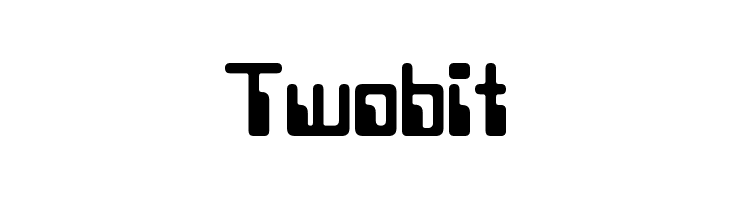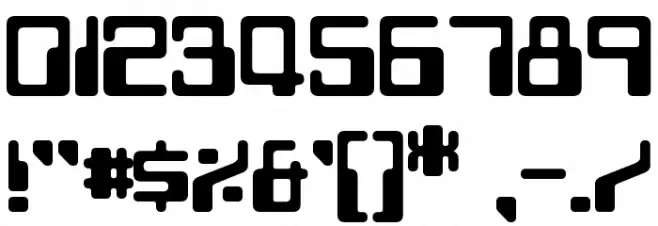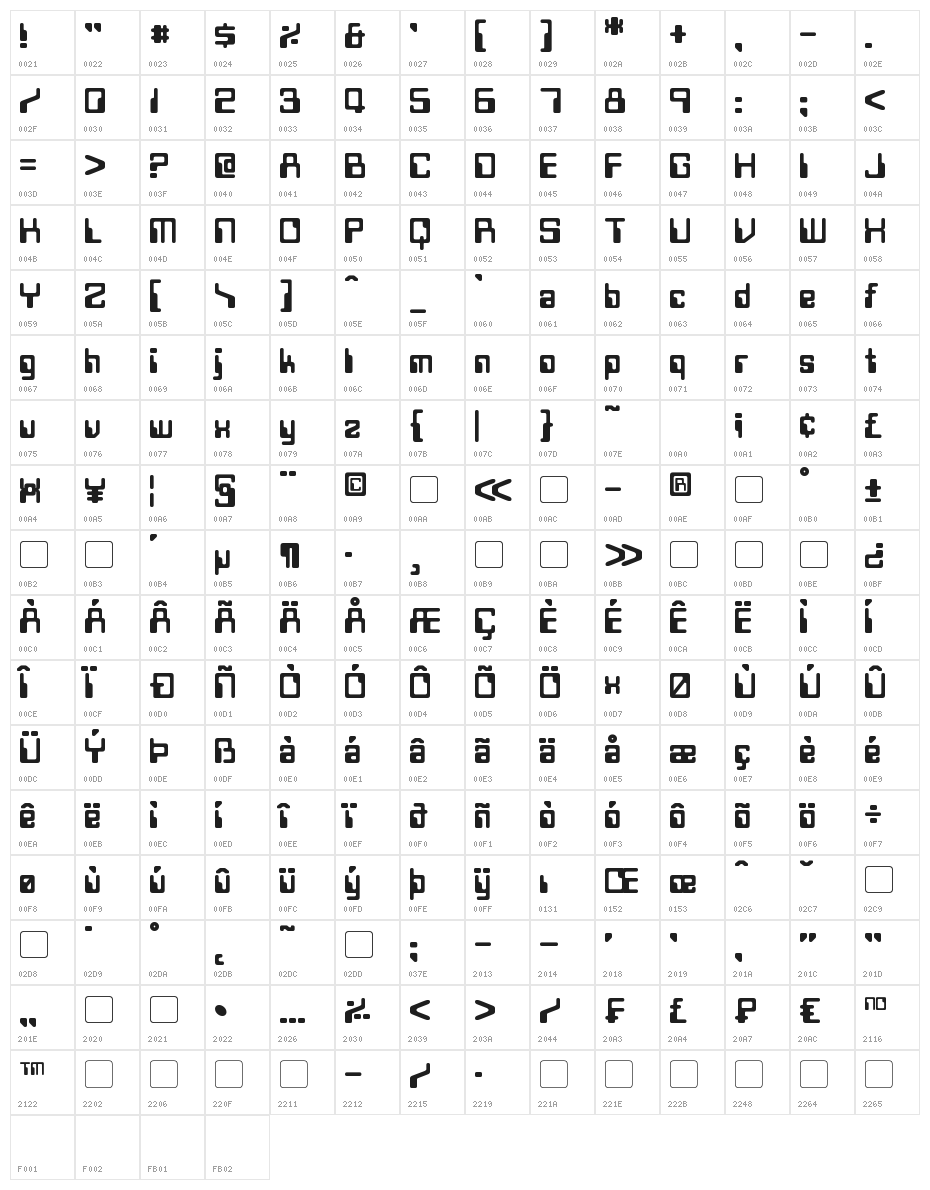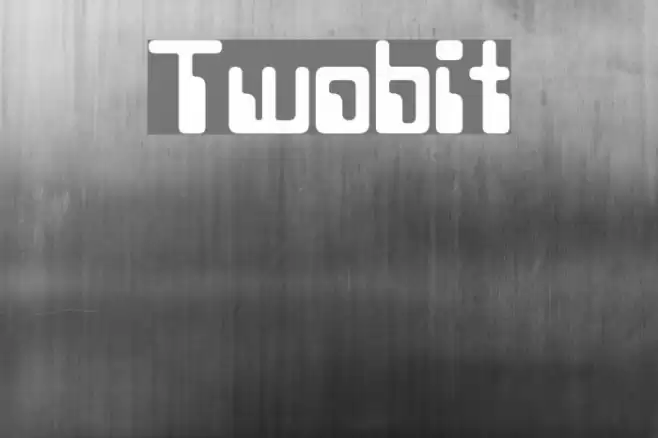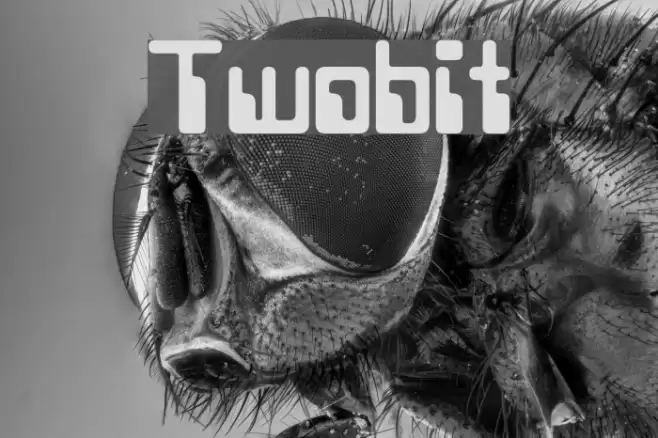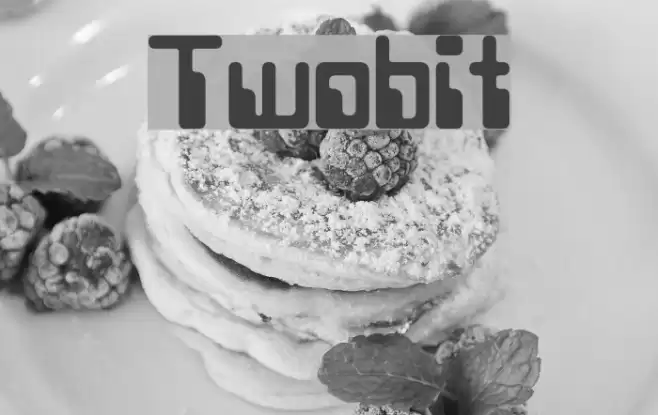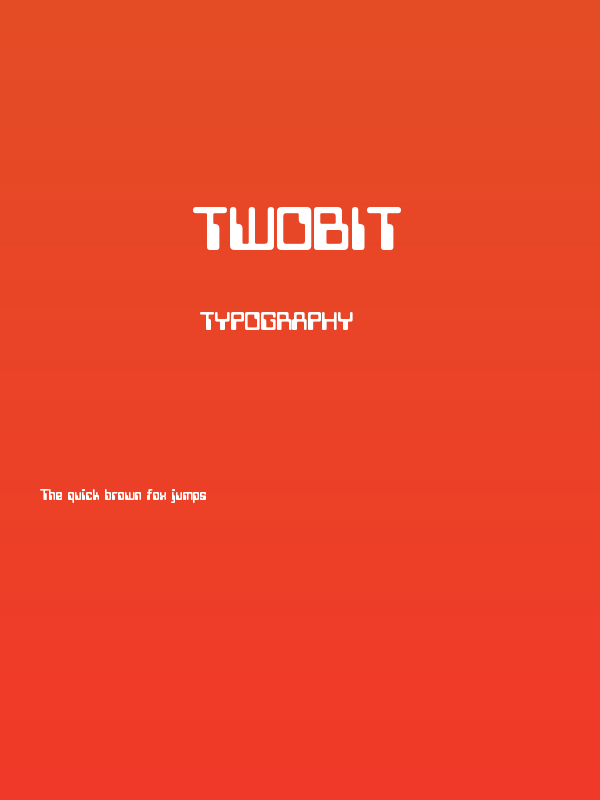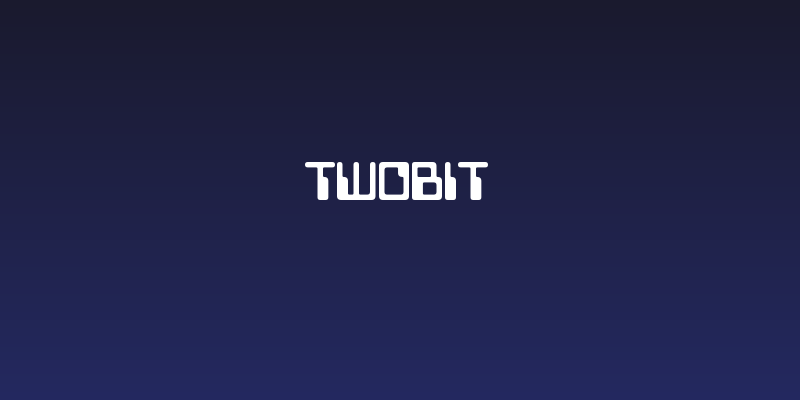
Twobit Font
Twobit Description
This font features a bold, geometric design with a distinctly modern and digital aesthetic. The characters are constructed with thick, uniform strokes, creating a blocky and robust appearance. The edges are slightly rounded, adding a touch of softness to the otherwise rigid structure. The uppercase and lowercase letters maintain a consistent style, with the lowercase set being slightly more compact. Numbers and special characters follow the same design principles, ensuring a cohesive look across all elements. The font's style is reminiscent of early digital displays, making it ideal for projects that require a retro or tech-inspired theme.
| Use Case | Logos, Headlines, Posters |
| Proposed Projects | Ideal for tech-themed designs, retro digital displays, video game graphics, and futuristic branding. |